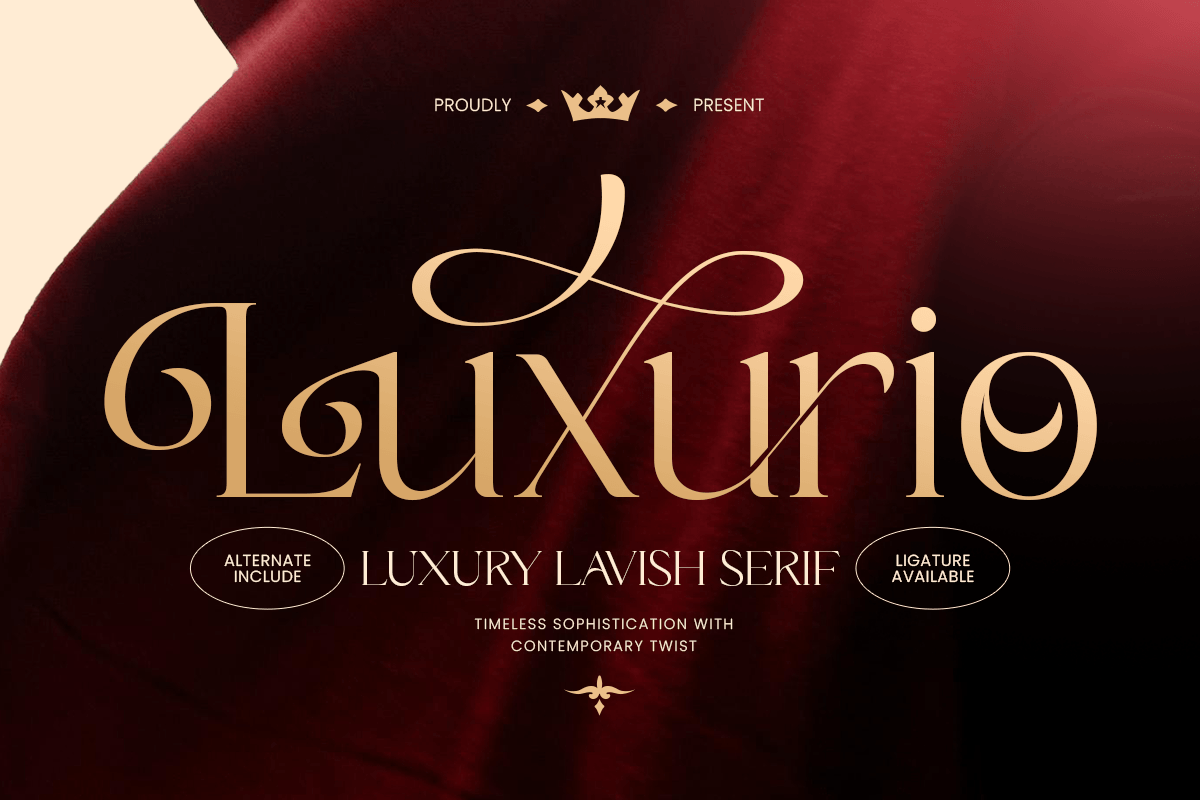
Luxurio
-Modern Luxury Lavish Serif FontLuxurio - Modern Luxury Lavish Serif Font
Luxurio is a modern luxury lavish serif font designed to express sophistication, prestige, and timeless elegance. Featuring refined serif details, graceful proportions, and luxurious character shapes, this typeface is ideal for premium branding, fashion campaigns, editorials, and upscale packaging.
Inspired by contemporary luxury aesthetics, Luxurio balances bold presence with delicate refinement. Its carefully crafted letterforms create a sense of exclusivity that elevates logos, magazine layouts, beauty branding, jewelry collections, and lifestyle products.
Whether used for luxury packaging, elegant invitations, fashion identities, or premium advertising, Luxurio delivers a polished and unforgettable visual experience across both digital and print media.
Luxurio – Modern Luxury Lavish Serif Font Features
Elegant high-end serif design with luxurious detailing
Perfect for fashion branding, editorials, logos, and premium packaging
Sophisticated letterforms with timeless visual appeal
Ideal for beauty, jewelry, lifestyle, and luxury industries
OpenType features for advanced typographic styling
Define luxury with confidence using Luxurio – the ultimate lavish serif font for premium branding, fashion, and elegant design. ✨👑